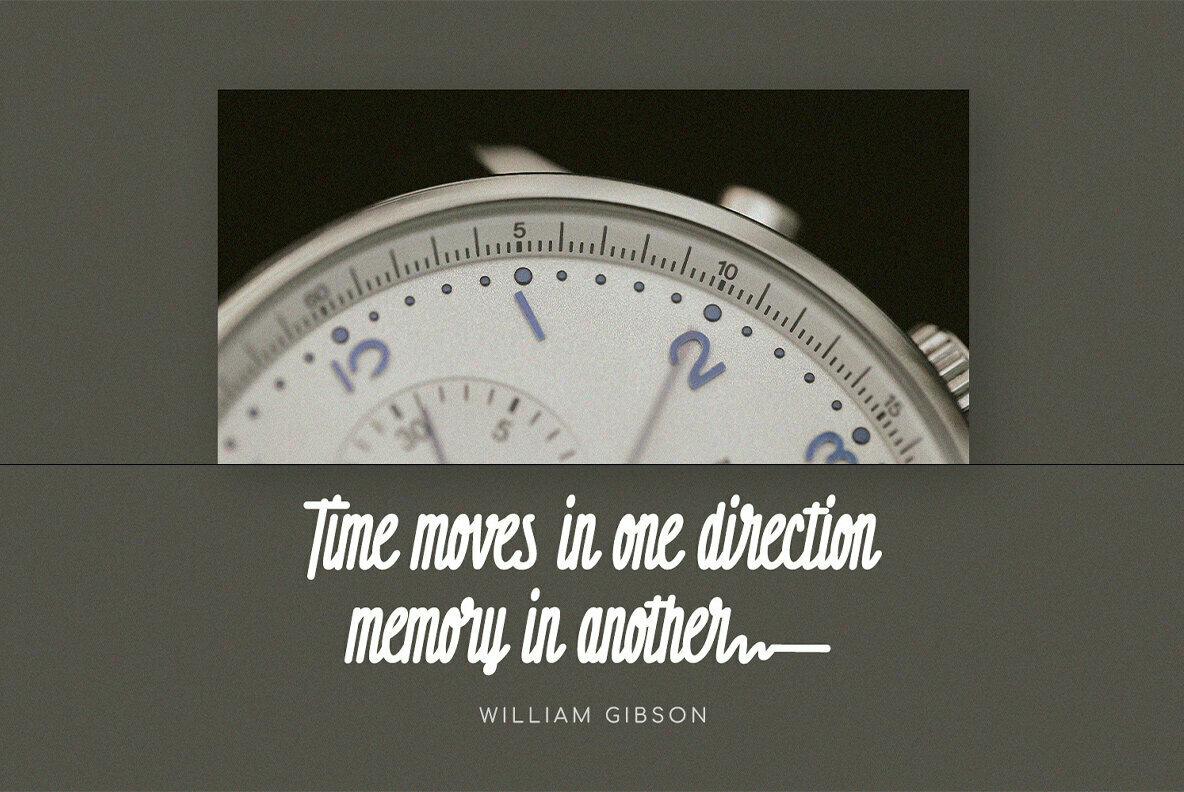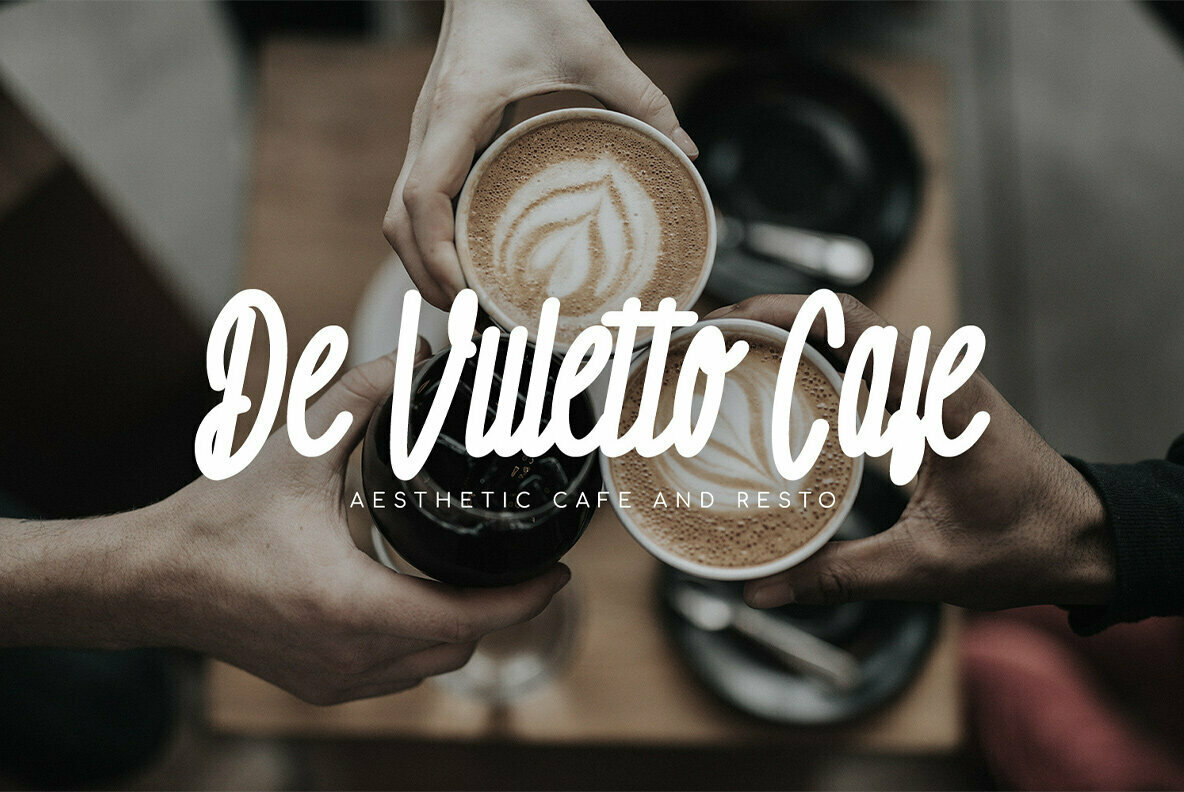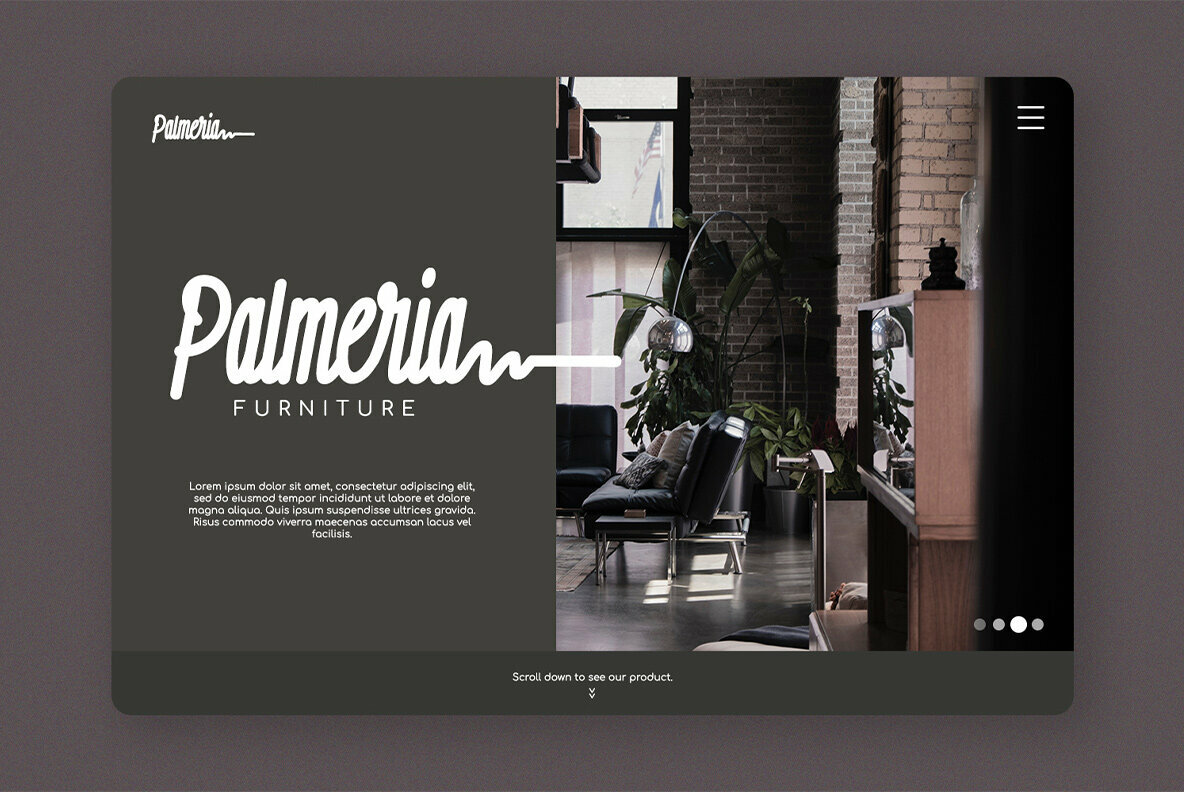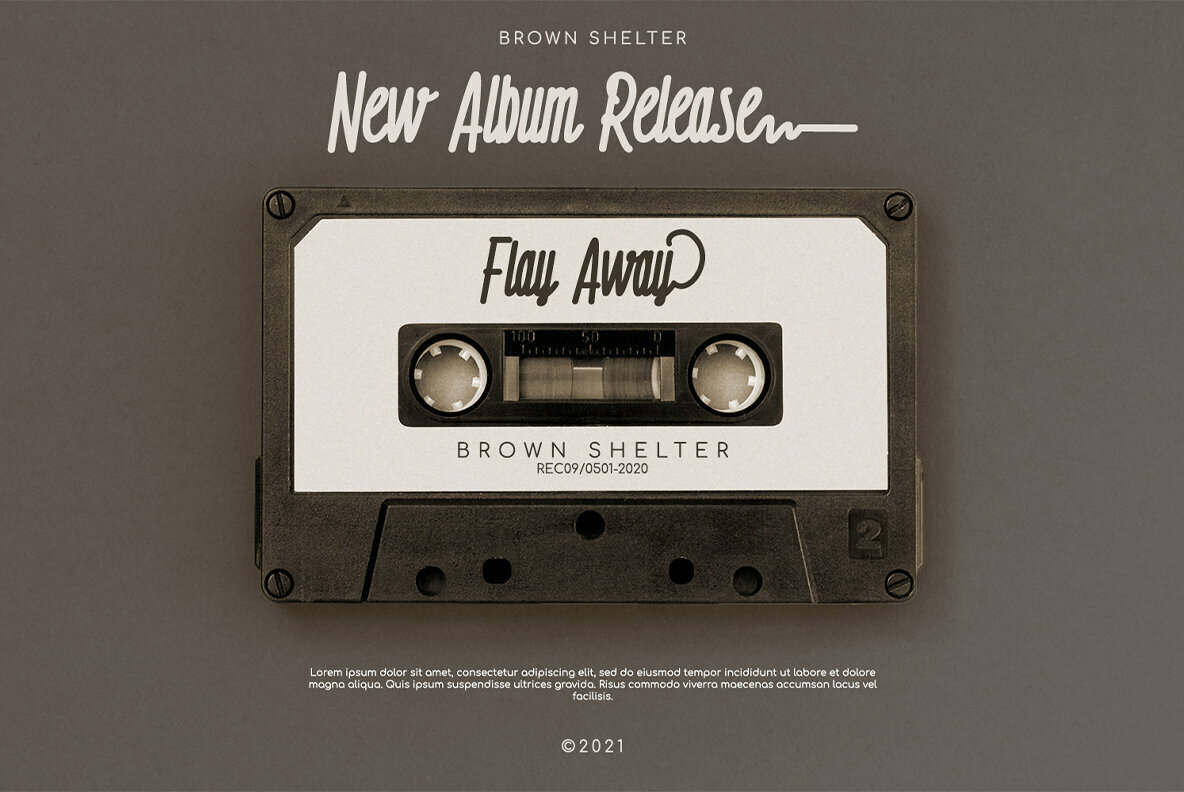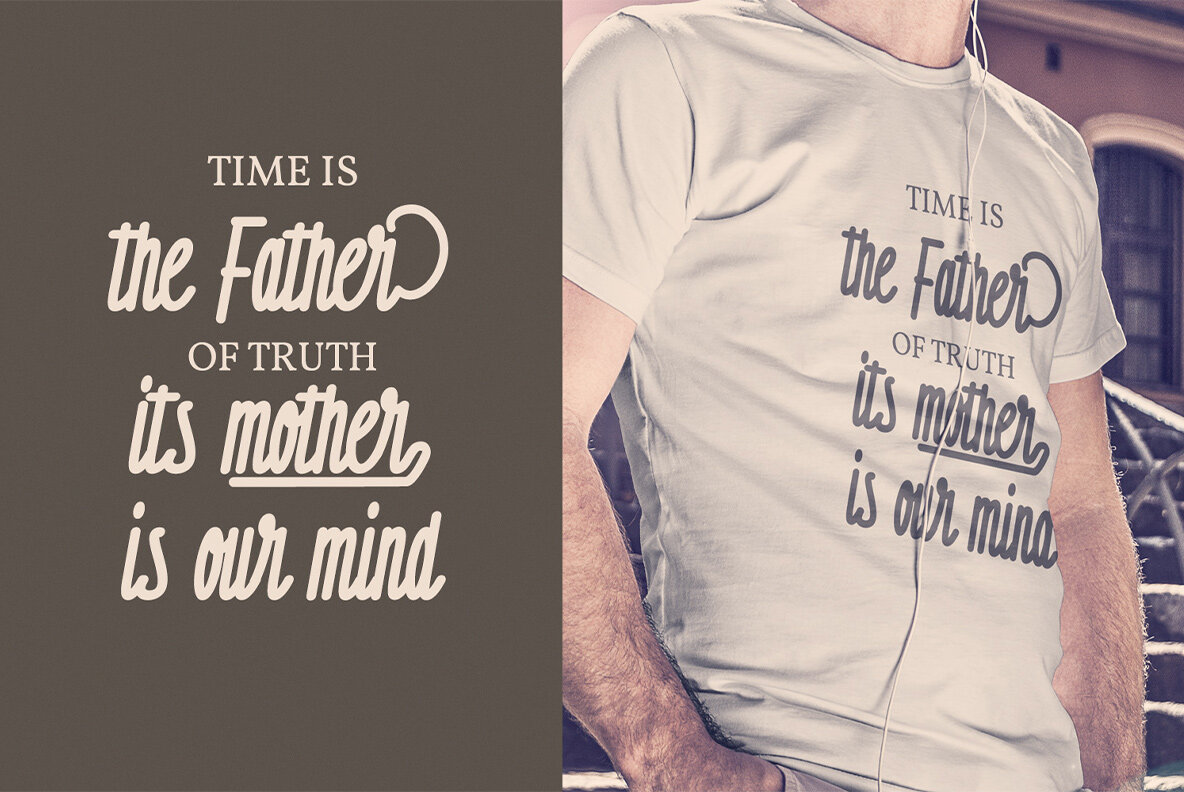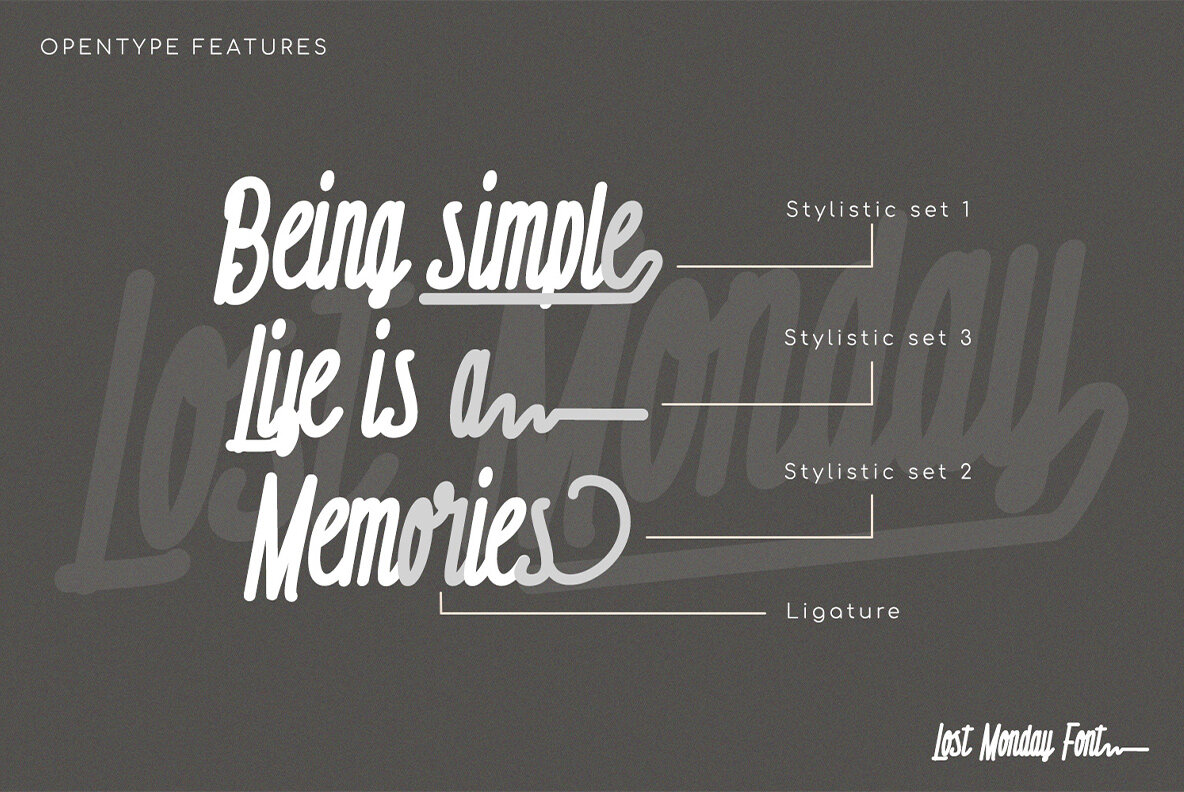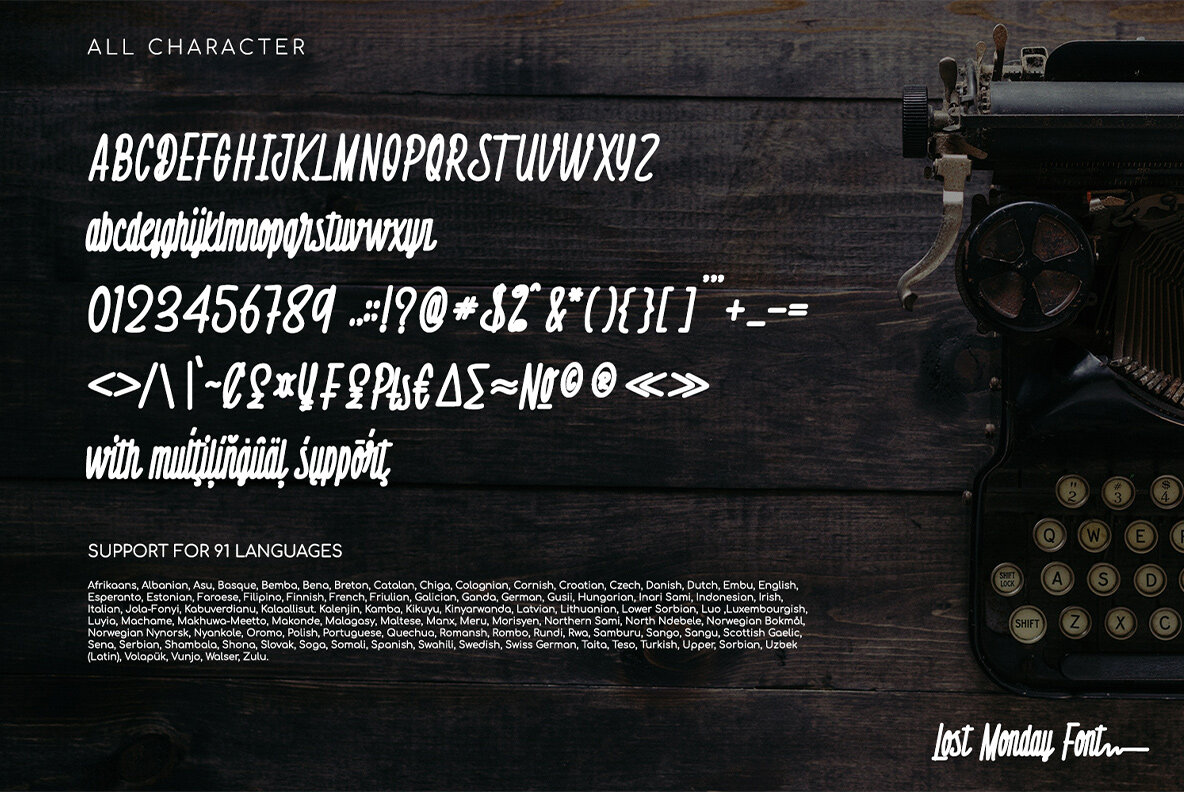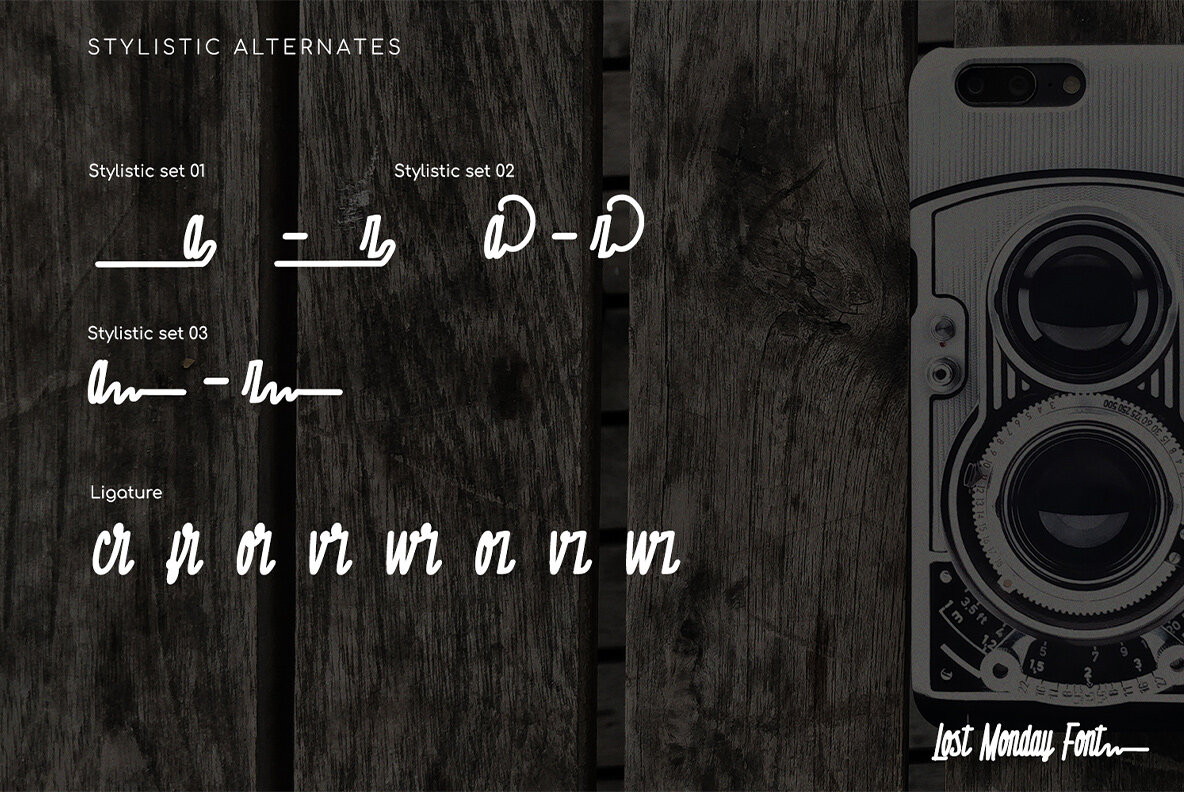
Lost Monday Font
Lost Monday
Embrace the elegance of Lost Monday, a monoline font that balances modernity with handcrafted style. Designed to capture attention with every stroke and curve, this font embodies simplicity fused with sophistication. Its versatility makes Lost Monday an excellent choice for a wide range of design projects, from logos and business cards to quotes and social media branding.Lost Monday: A Monoline Font with Stylish Simplicity